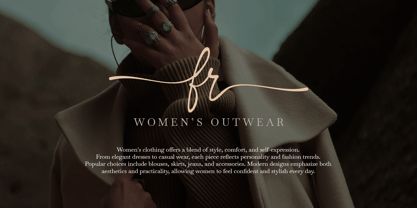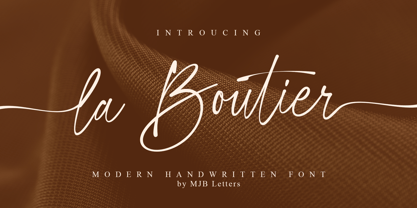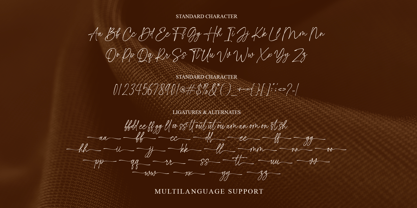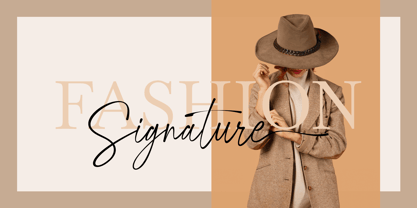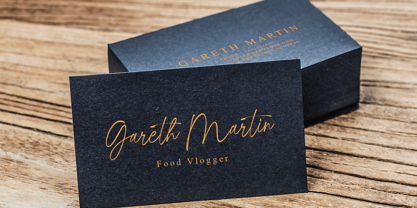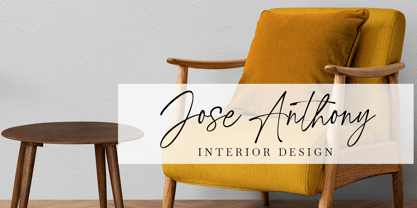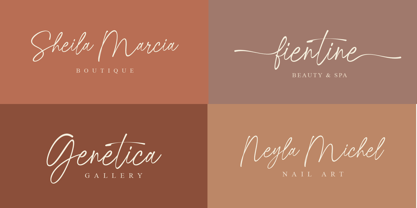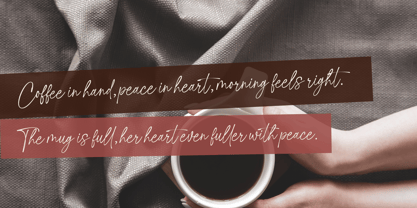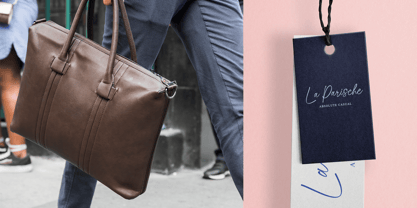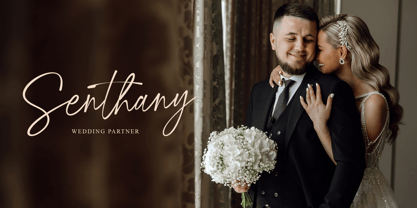
La Boutier
by MJB Letters
The La Boutier Font Family was designed by Muhammad Mujibulloh and published by MJB Letters. La Boutier contains 1 styles. More about this family
La Boutier is a graceful modern handwritten font crafted with elegance and flow. Its smooth curves and delicate strokes lend a personal yet refined touch, making it perfect for everything from wedding suites and logos to product packaging and social-media graphics.
This font comes equipped with a variety of stylistic ligatures and elegant swashes, making it easy to create beautifully customized text. With full PUA encoding, every special character is accessible without the need for additional design software. La Boutier also offers multilingual support and clear stroke contrast, ensuring your designs remain legible and stylish across various languages and media.